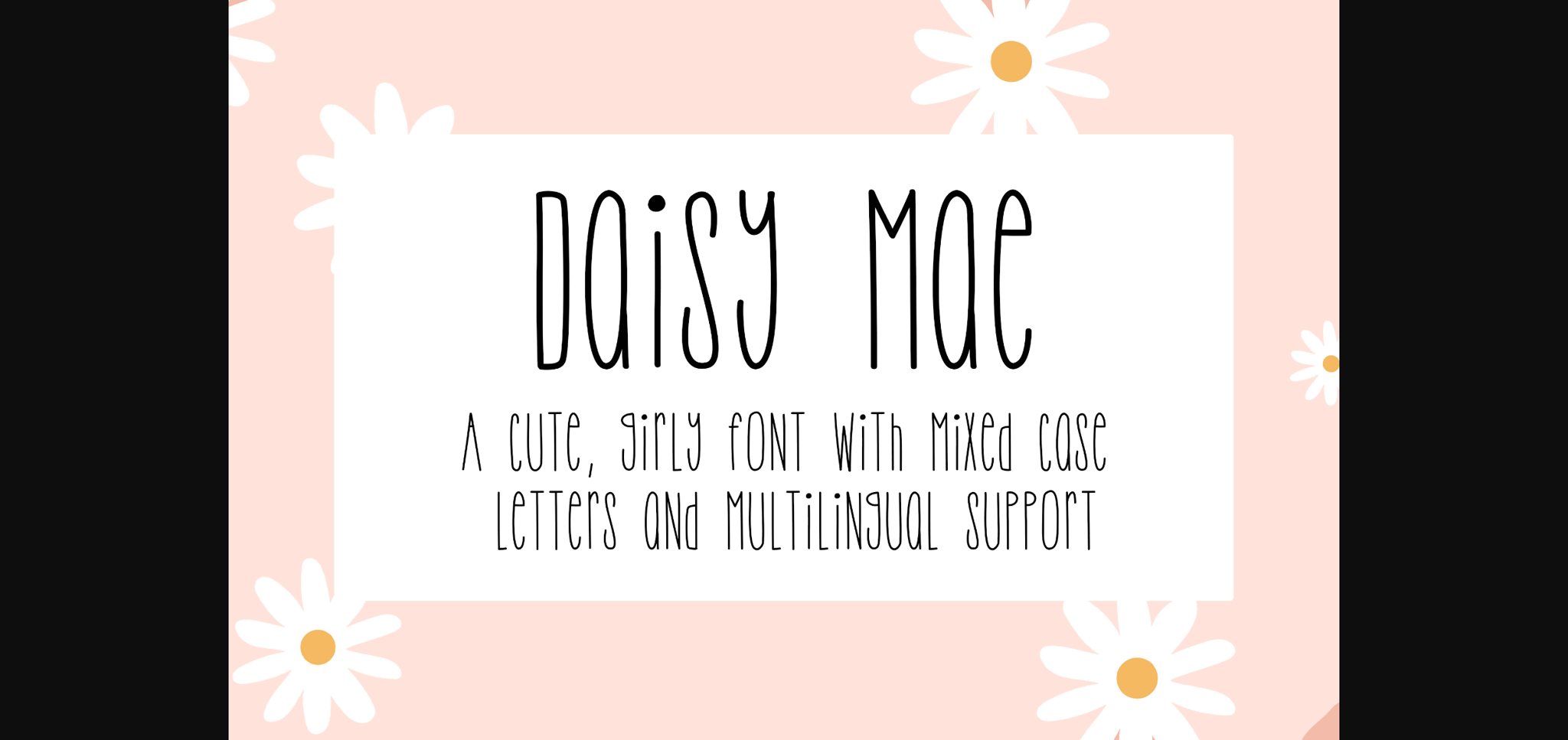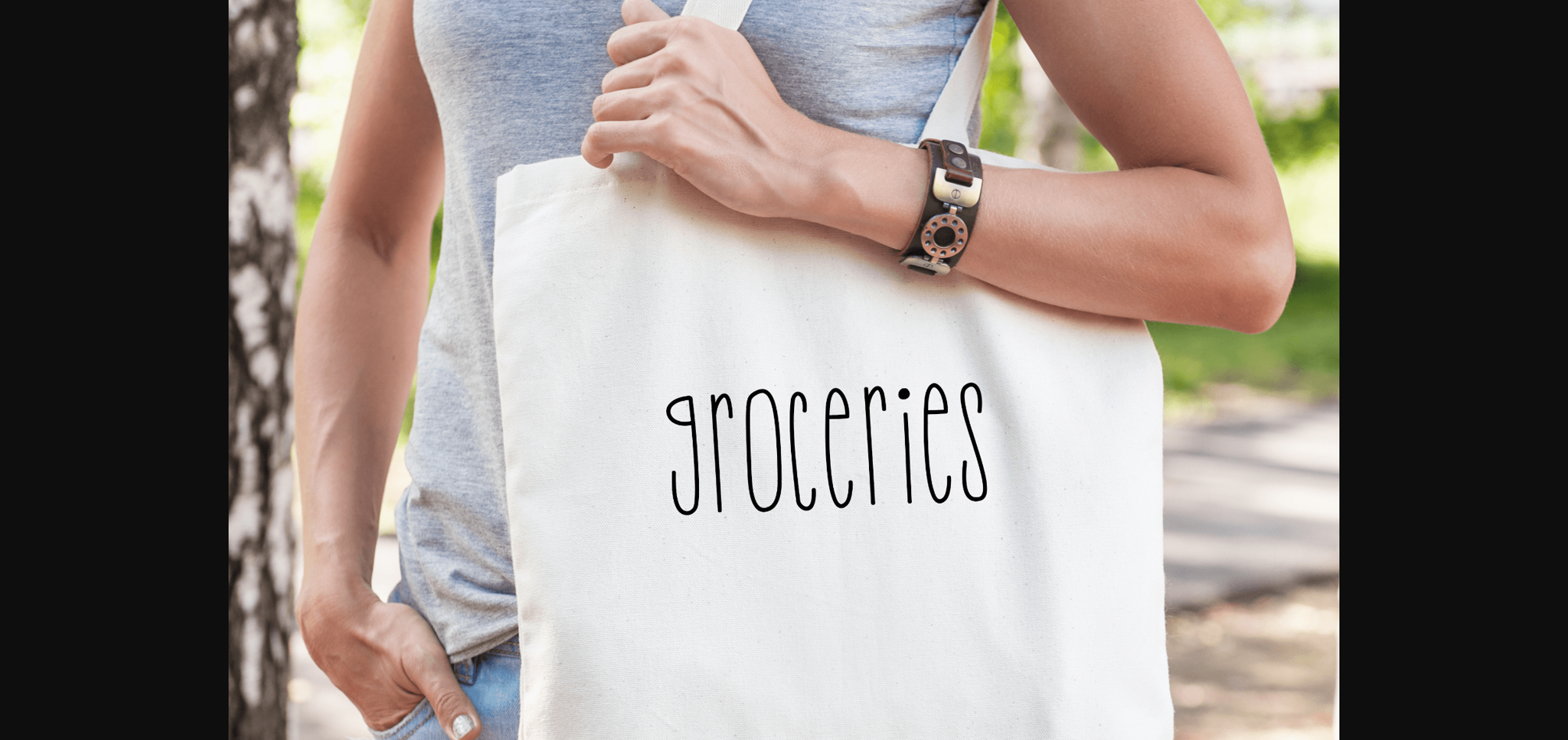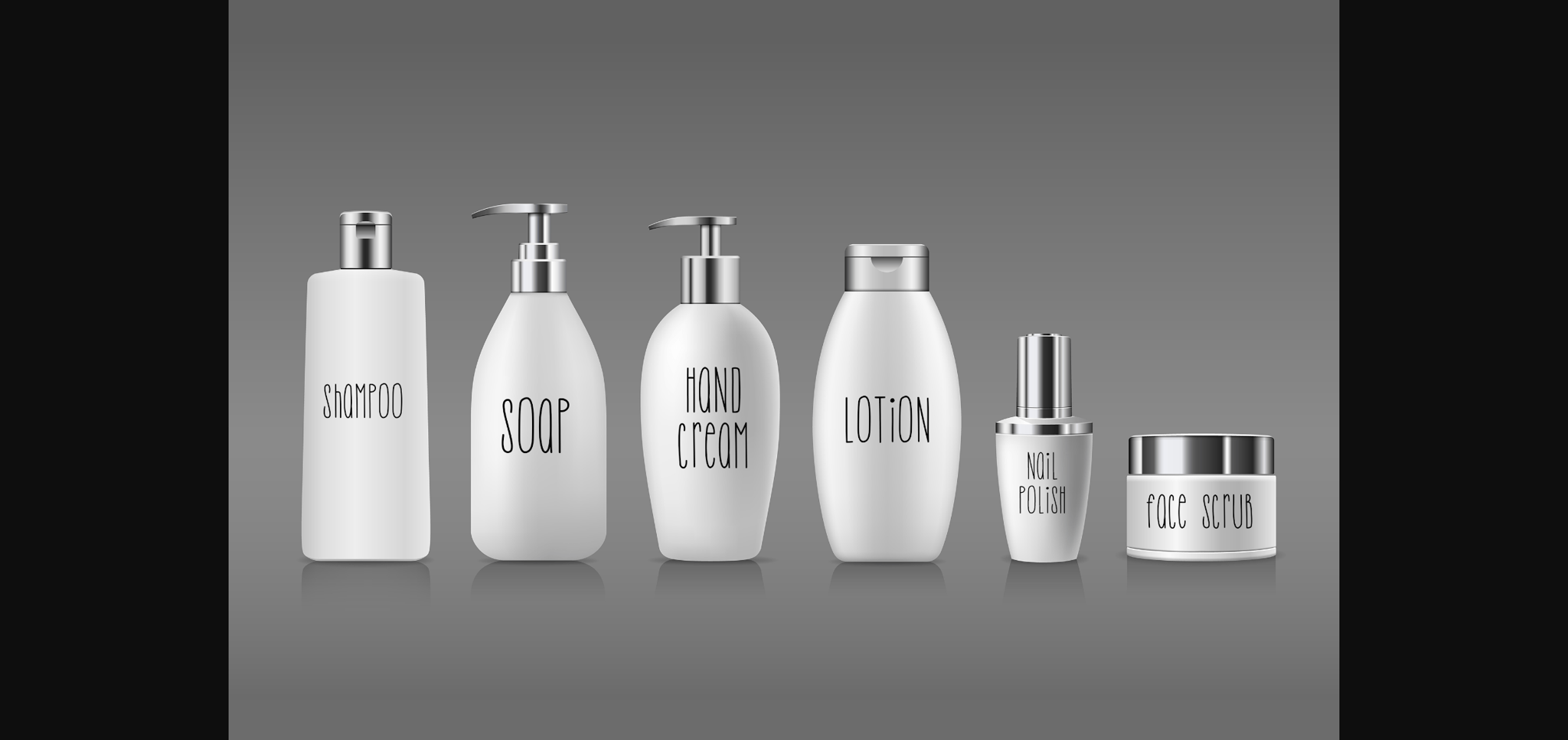
Daisy Mae Font
About Daisy Mae Font
Daisy Mae is a fun, quirky feminine font with mixed-case letters. This cute typeface is perfect for greeting cards, invitations, posters, t-shirt designs or anything that needs a joyful touch.